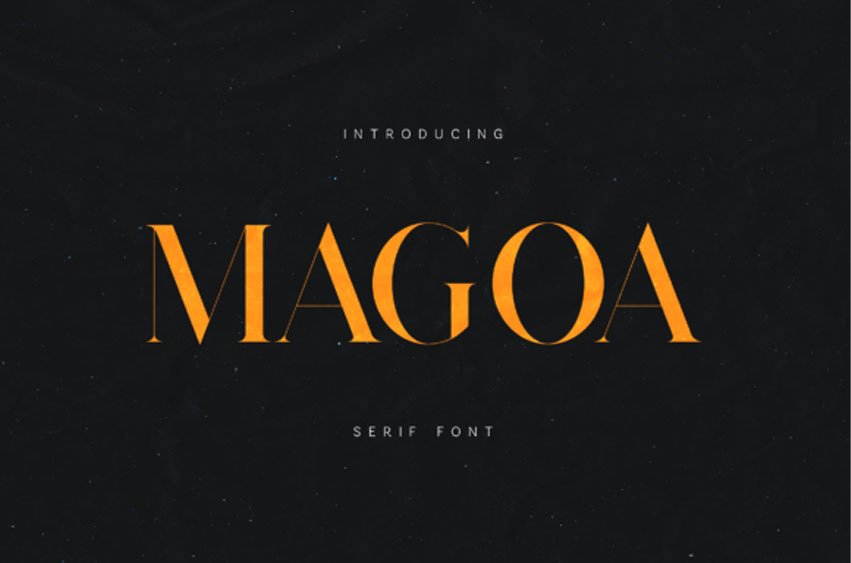
Magoa Serif Font is a refined modern serif typeface designed for sophisticated editorial and branding projects.
Magoa is perfect for projects that require a premium editorial look, including branding, luxury packaging, magazines, posters, websites, social media graphics, headlines, and logo design.